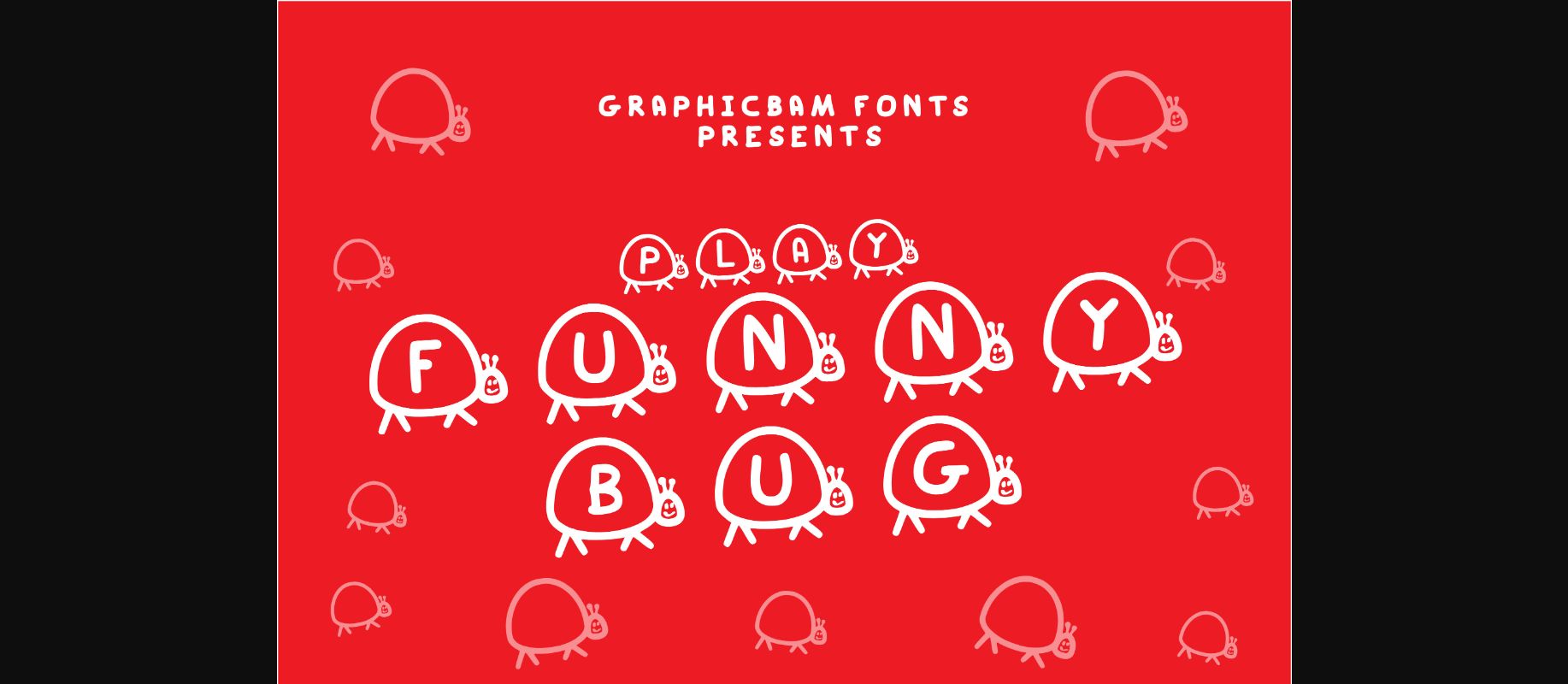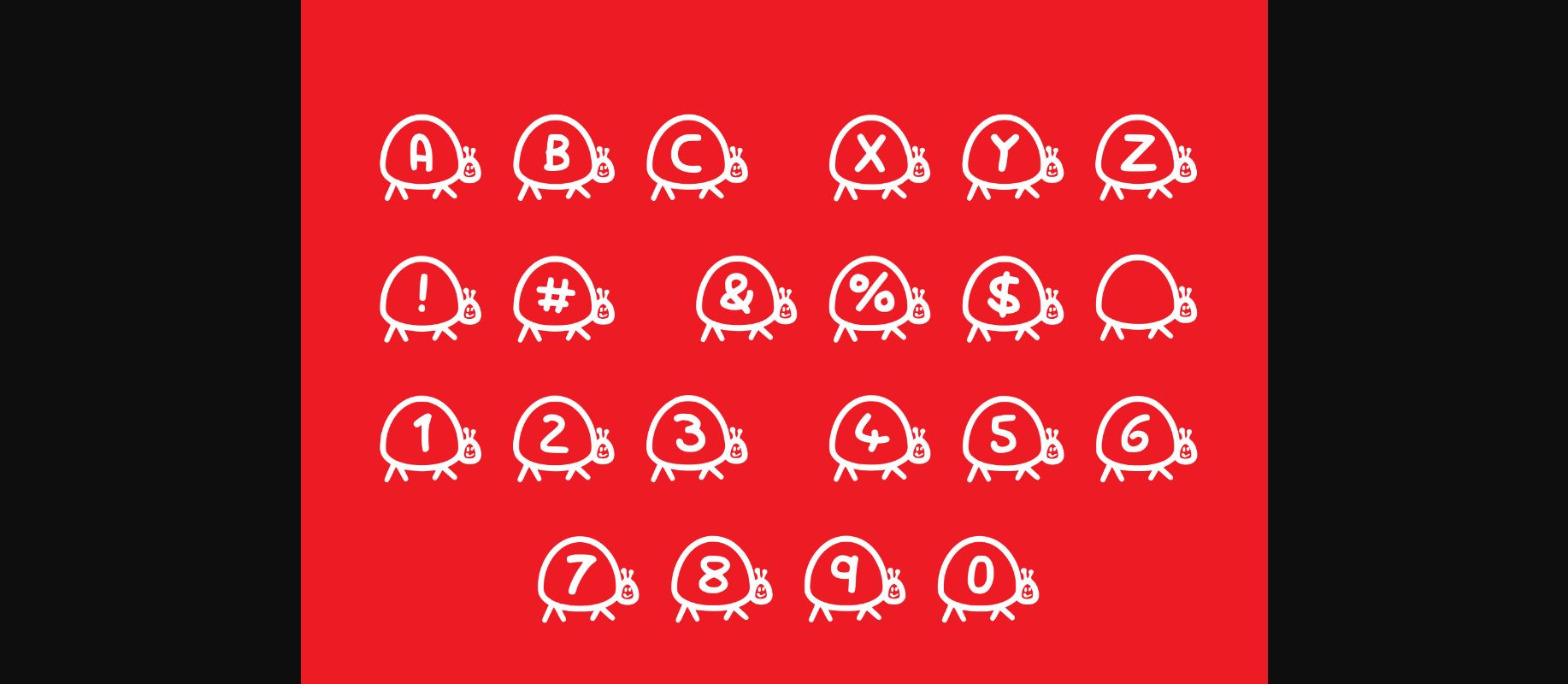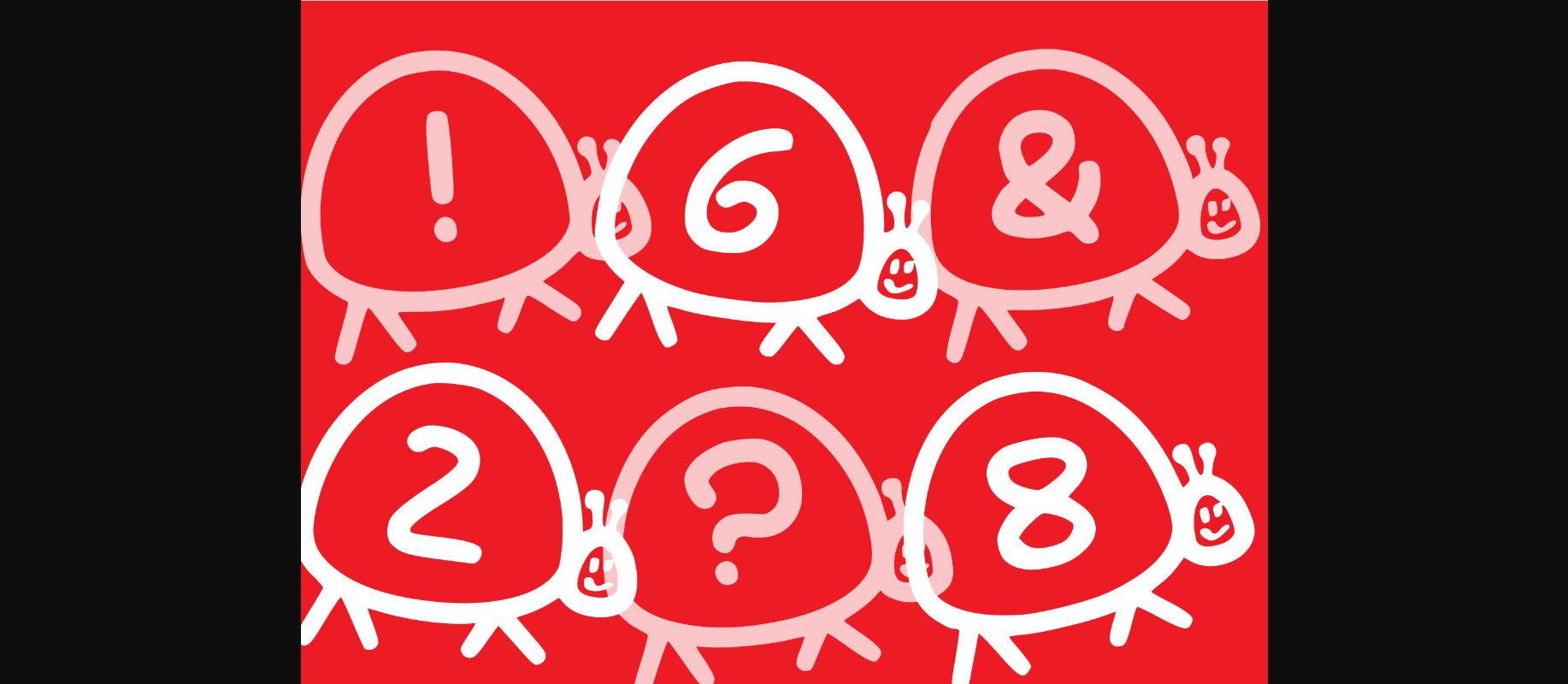
Play Funny Bug is a playful and extremely entertaining decorative font, perfect for your wildest creative ideas! It looks friendly and jolly, just great for informal design projects.